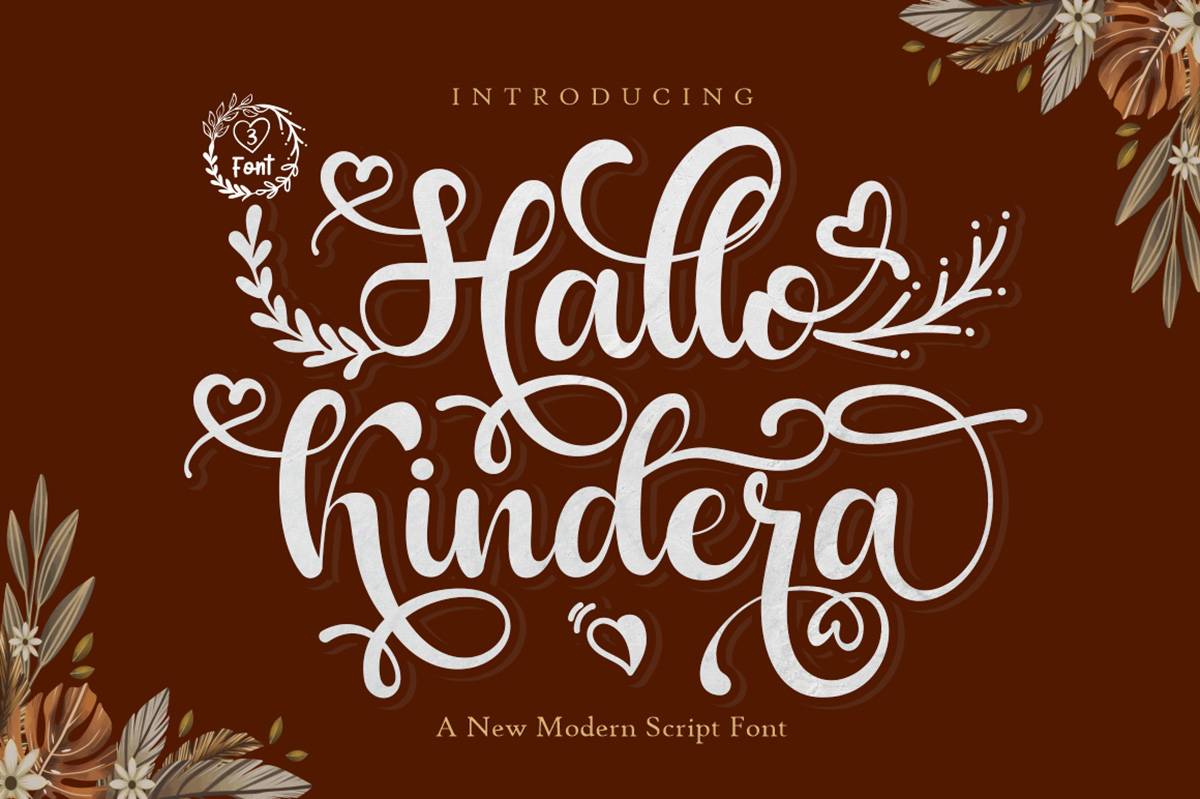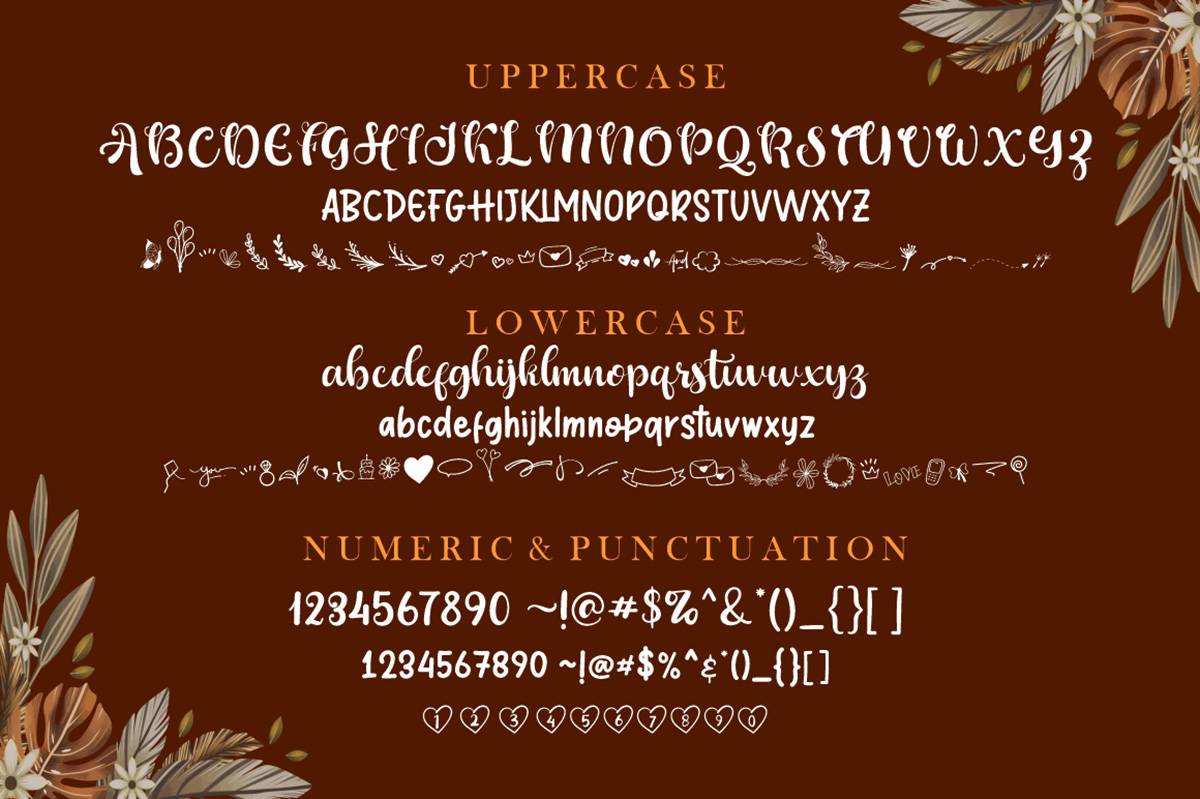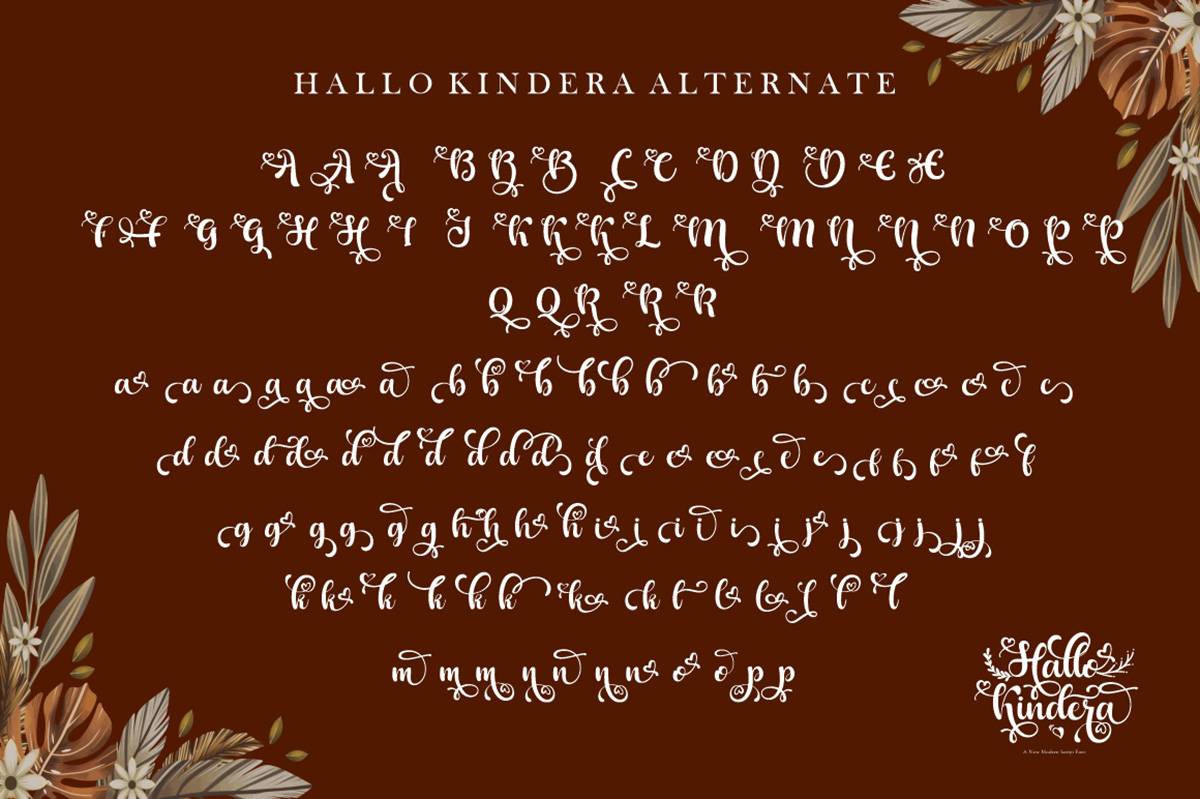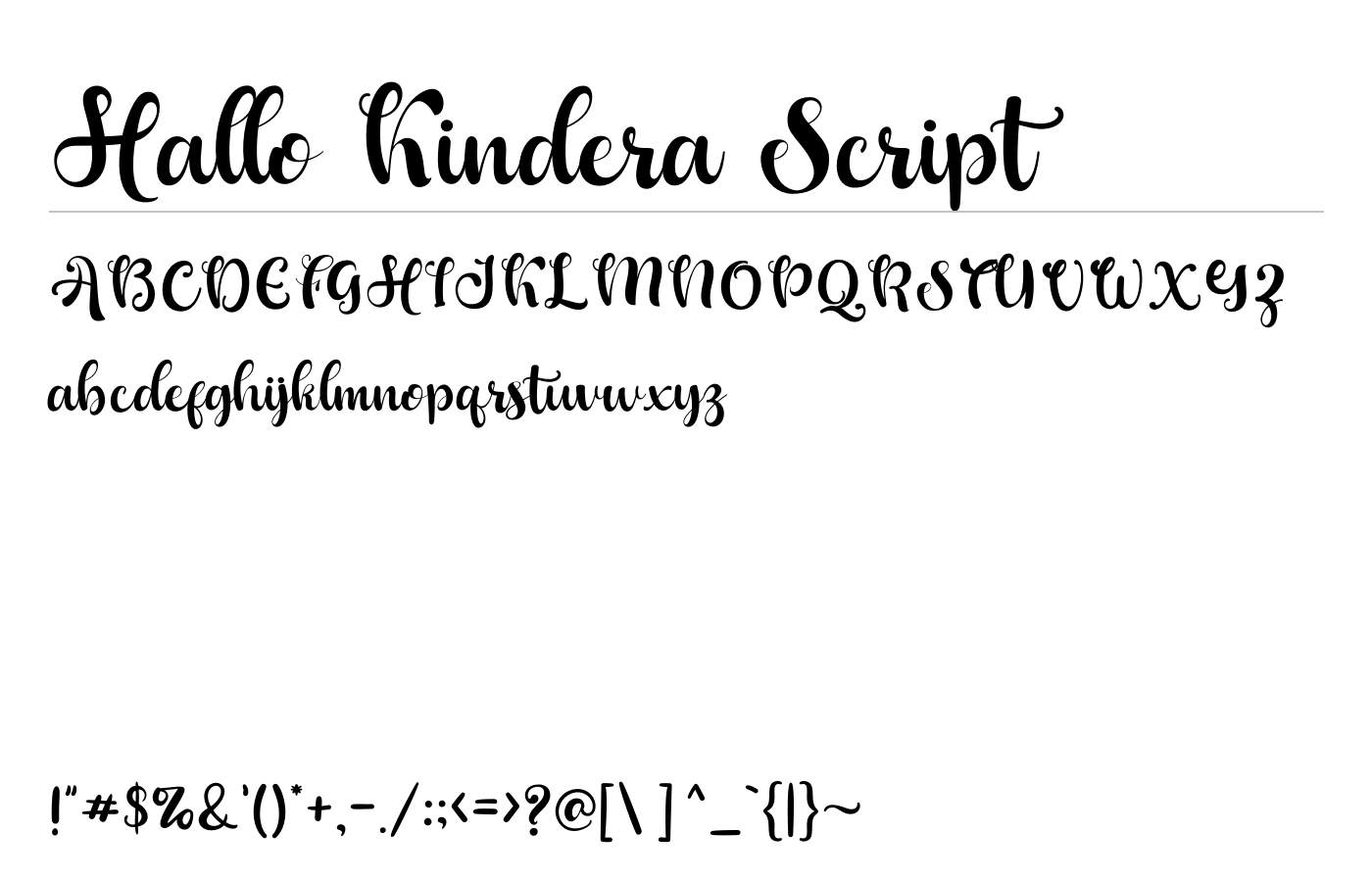
Hallo Kindera is a playful and elegant script font with fluid, connected strokes and decorative flourishes that give it a lively, handcrafted feel. Its medium weight and generous spacing make it perfect for adding charm and personality to invitations, headings, and branding projects that want to convey warmth and friendliness. This font works especially well in creative and casual contexts where a unique, artistic touch is desired.